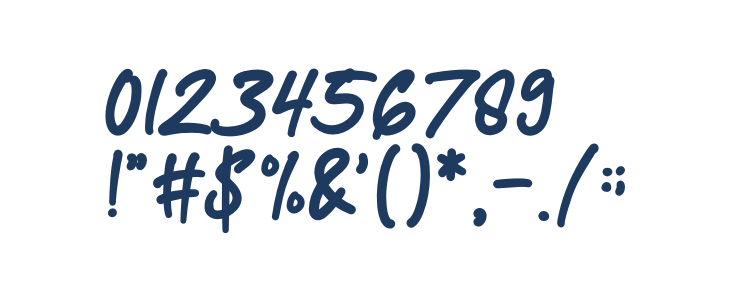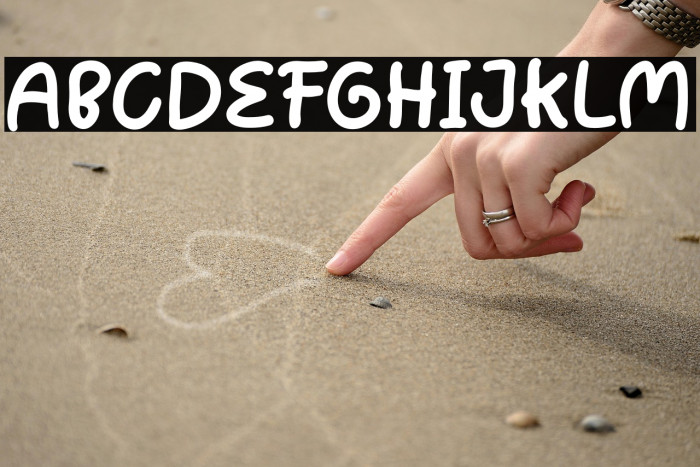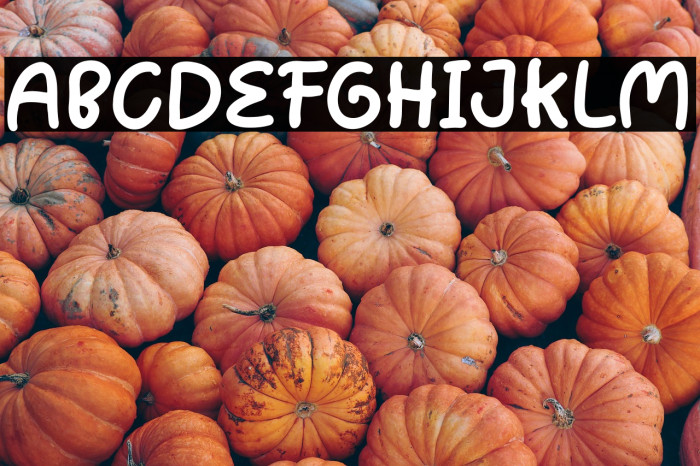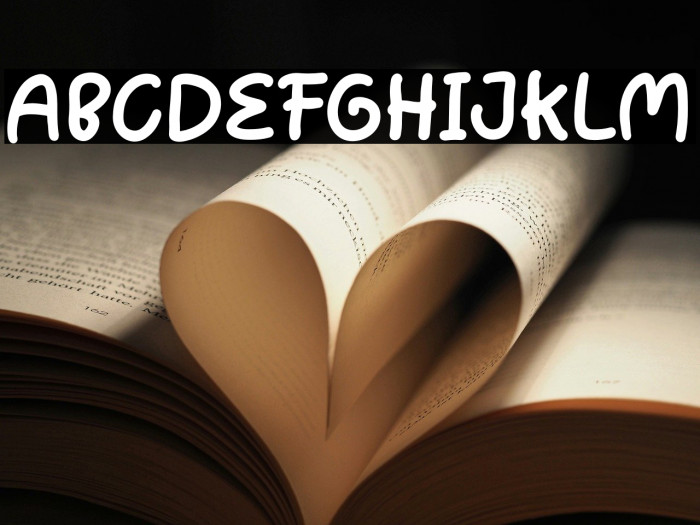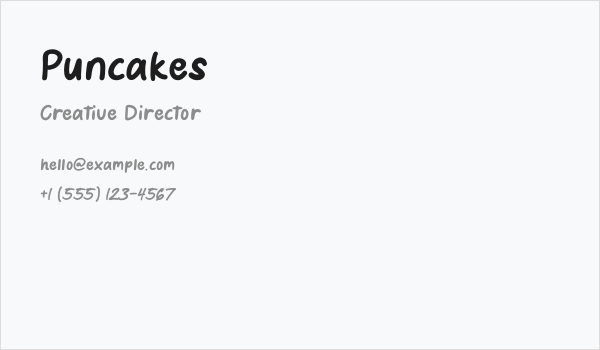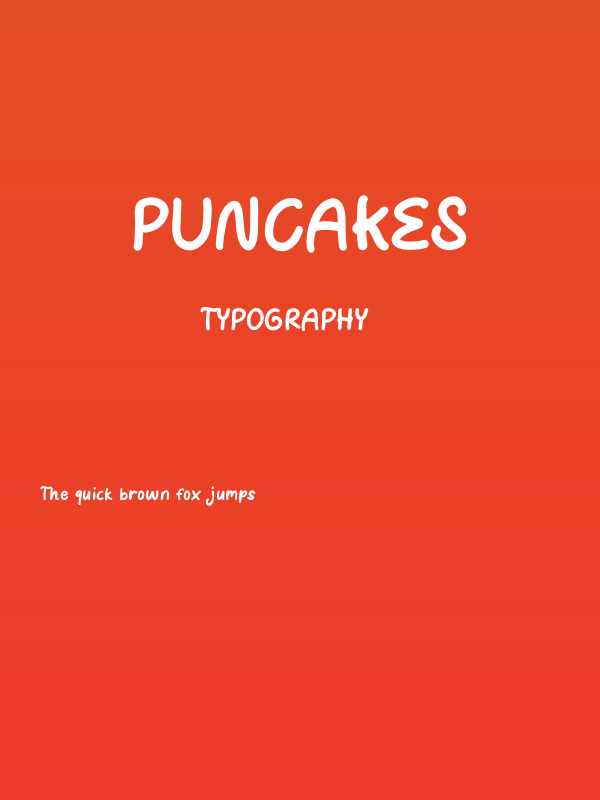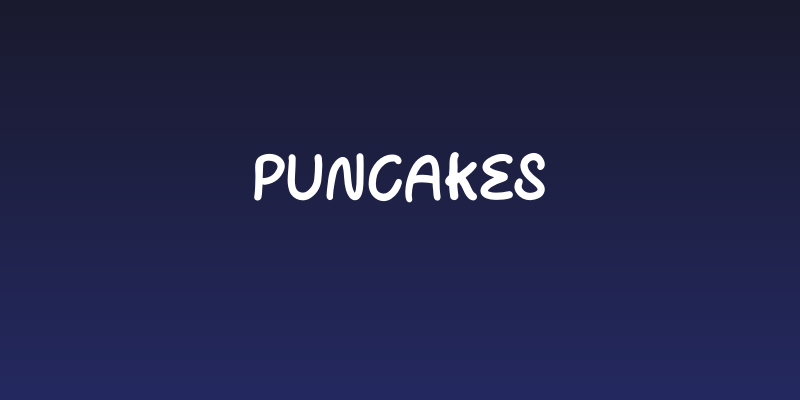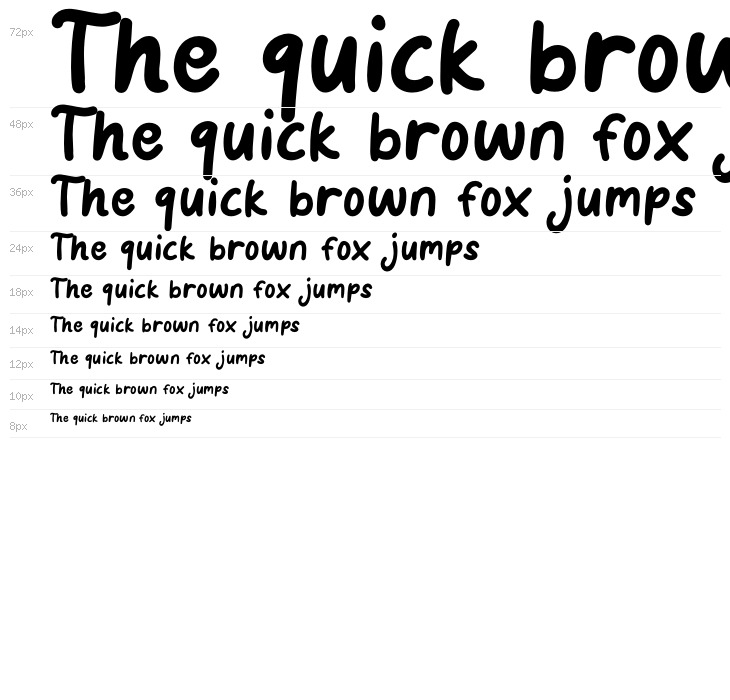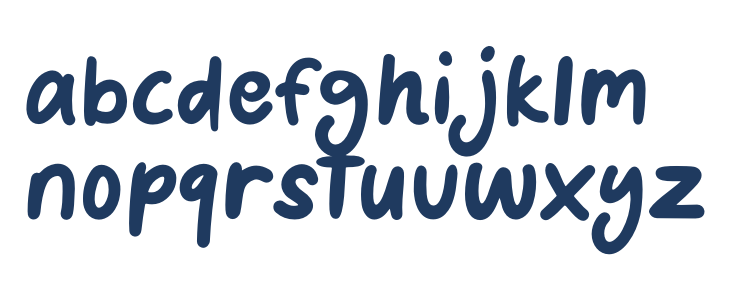
Puncakes Font
Puncakes Description
This playful and bold font features rounded, hand-drawn characters that exude a casual and friendly vibe. The letters are slightly irregular, adding a touch of whimsy and personality. The strokes are thick and consistent, providing a strong visual presence. The font maintains a uniform weight throughout, ensuring readability while retaining its unique style. It includes a full set of uppercase and lowercase letters, numbers, and a variety of special characters, making it versatile for different design needs. The overall appearance is approachable and fun, making it ideal for projects that require a personal touch.
| Overall Style | Playful |
| Use Case | Headlines, Logos, Informal Text |
| Proposed Projects | Ideal for children's books, playful branding, greeting cards, and social media graphics. |